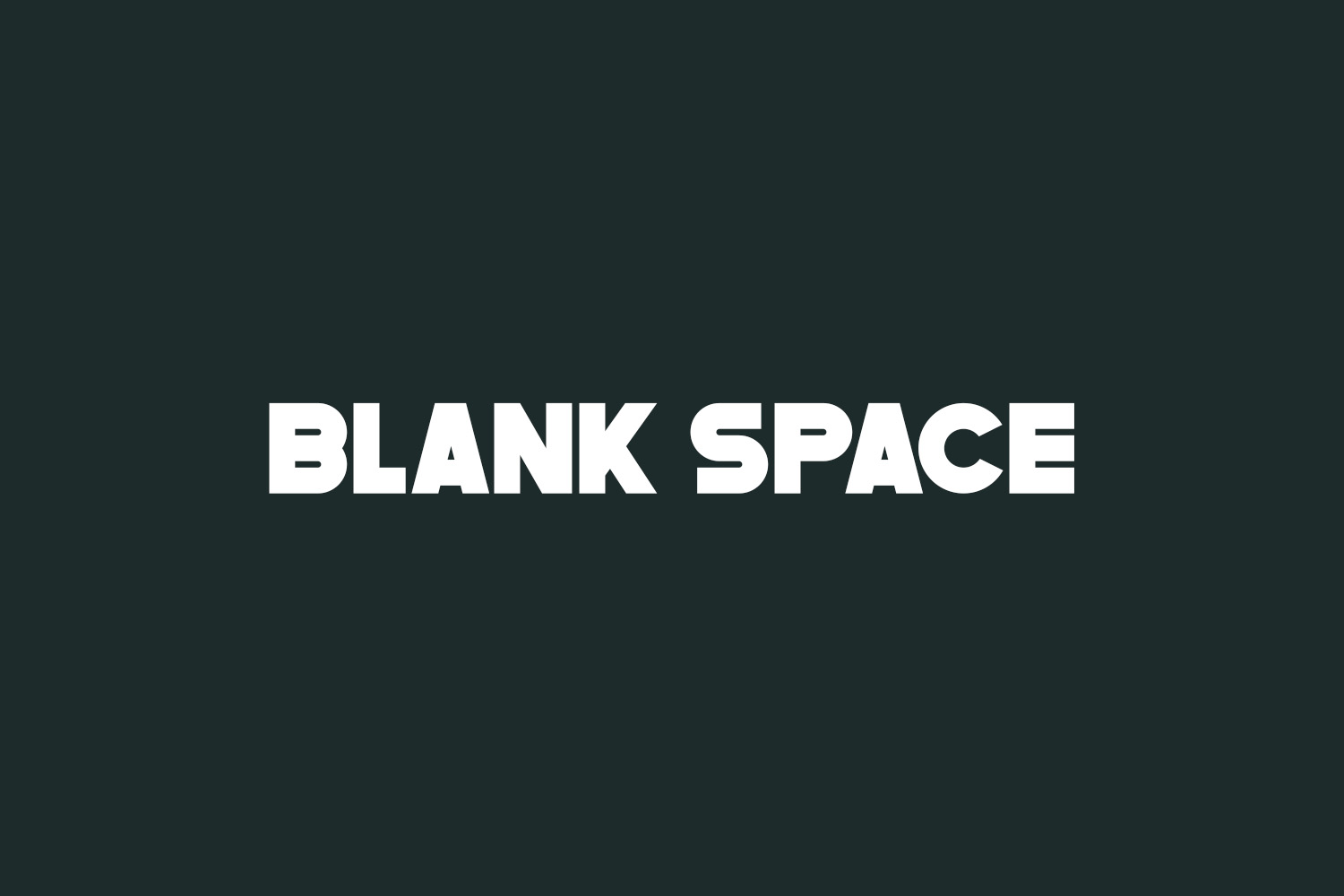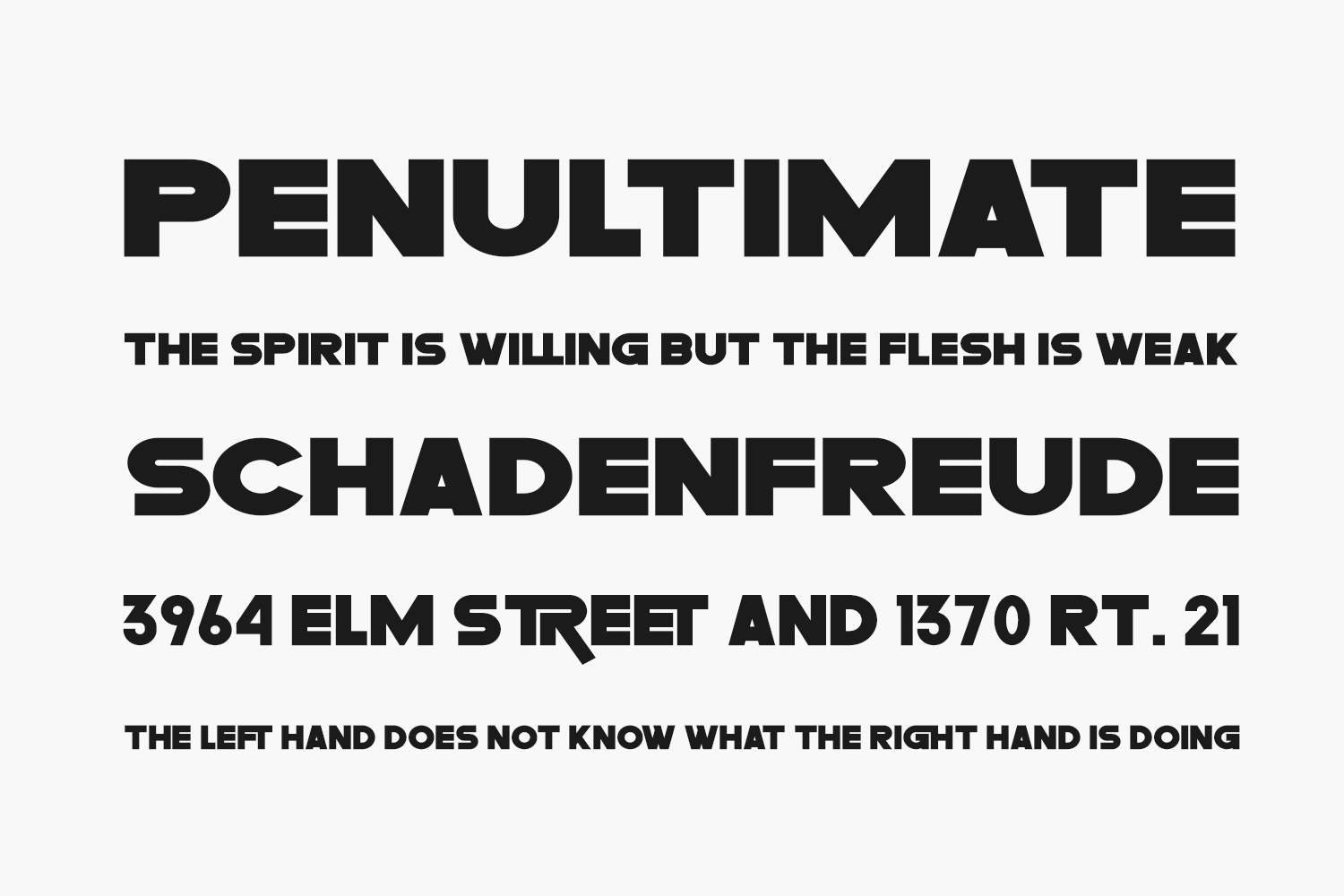
Blank Space Free Font is an impressive and robust display font that demands attention. With its bold and thick lettering, this font makes a strong and confident statement. Infuse your designs with a powerful and dynamic vibe, while adding a touch of stylish character, using the captivating Blank Space font. Blank Space Free Font is free for personal use only. Please purchase the full version for commercial use.